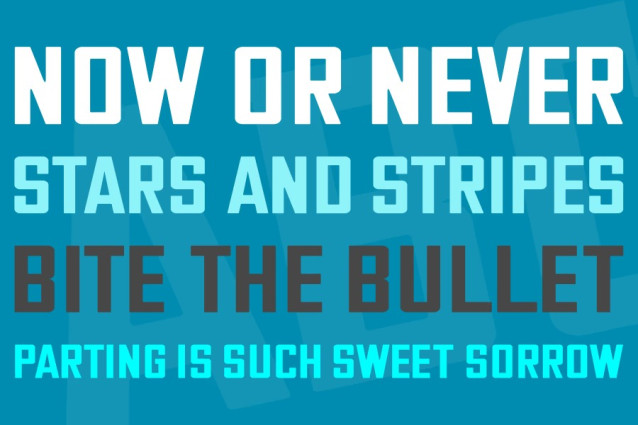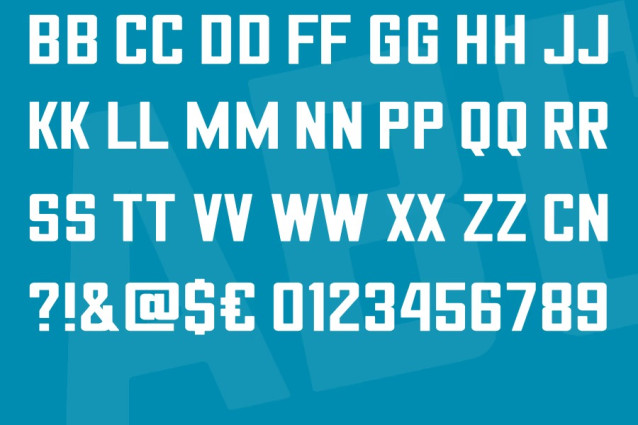
Cosmic Super Human Font
Cosmic Super Human Font a bold statement with our latest sans-serif font. With its clean lines and modern appeal, this font is sure to turn heads and leave a lasting impression. Perfect for headlines, logos, and any design that demands attention. It is both functional and stylish, making it a versatile choice for a wide range of design projects.